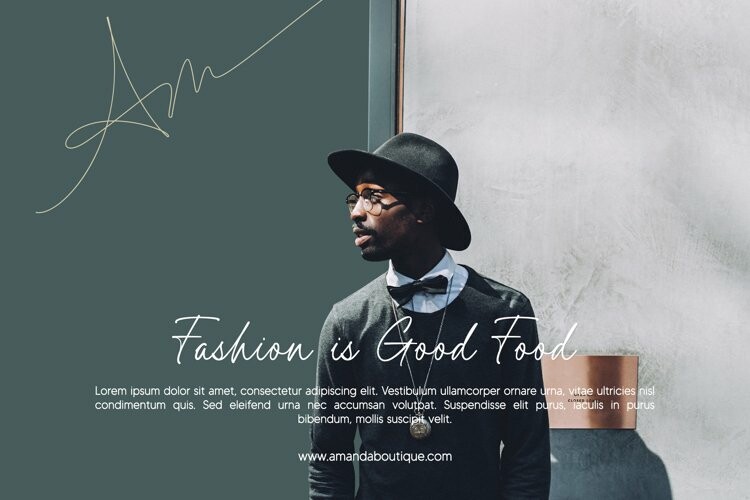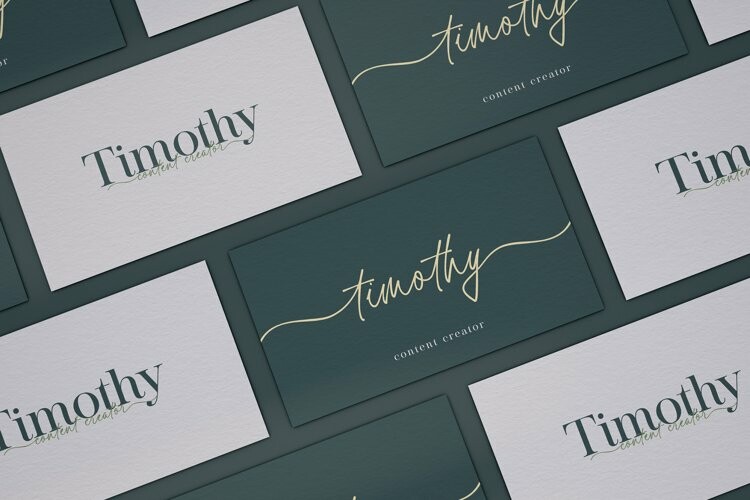
Romantis Scene Font
Romantis Scene FontRomantis Scene is a beautiful and flowing script font with a modern style. This gentle font will look gorgeous on a variety of design ideas. It is perfect for many different projects such as logos & branding, invitation, stationery, wedding designs, signature, product designs, labels, photography, and much more!